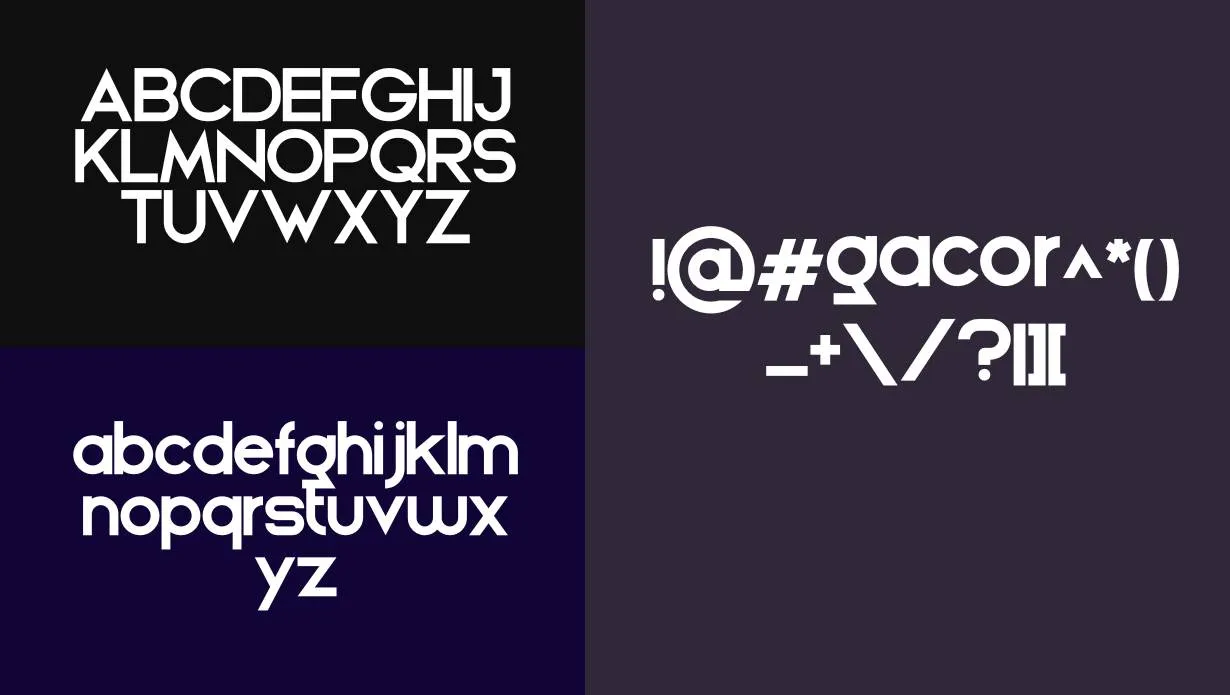
The Gacor font is bold and assertive, making a statement with its strong and distinctive characters. Its robust design is perfect for projects that demand attention and impact.
Whether you’re creating eye-catching headlines, signage, or promotional materials, the Gacor font ensures that your words are noticed and remembered. Let your text make a bold statement with the commanding presence of the Gacor font.
| Name | Gacor Font |
| Designer | Donis Miftahudin |